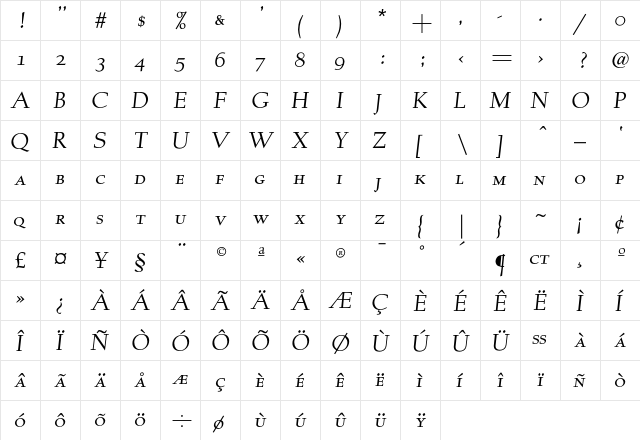
AlbertanH-SC-Italic Regular
Design Context for AlbertanH-SC-Italic Typeface
AlbertanH-SC-Italic is a composed and adaptable typeface that performs quietly and consistently across a wide range of design contexts. Its italic angle brings a sense of urgency and motion to the letterforms.
Pro Tip: Try AlbertanH-SC-Italic for annotation and caption copy alongside an upright companion — the contrast in angle creates a dynamic but ordered typographic system.